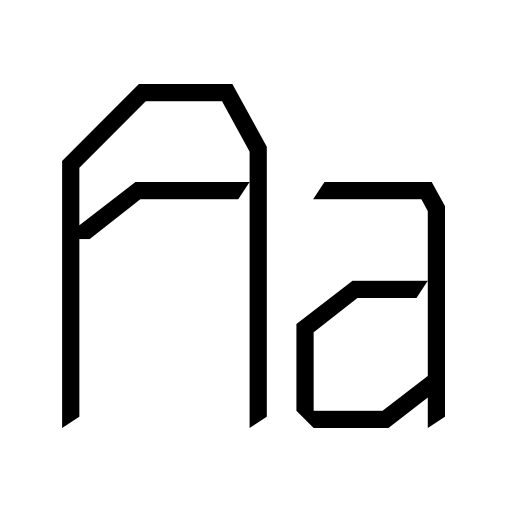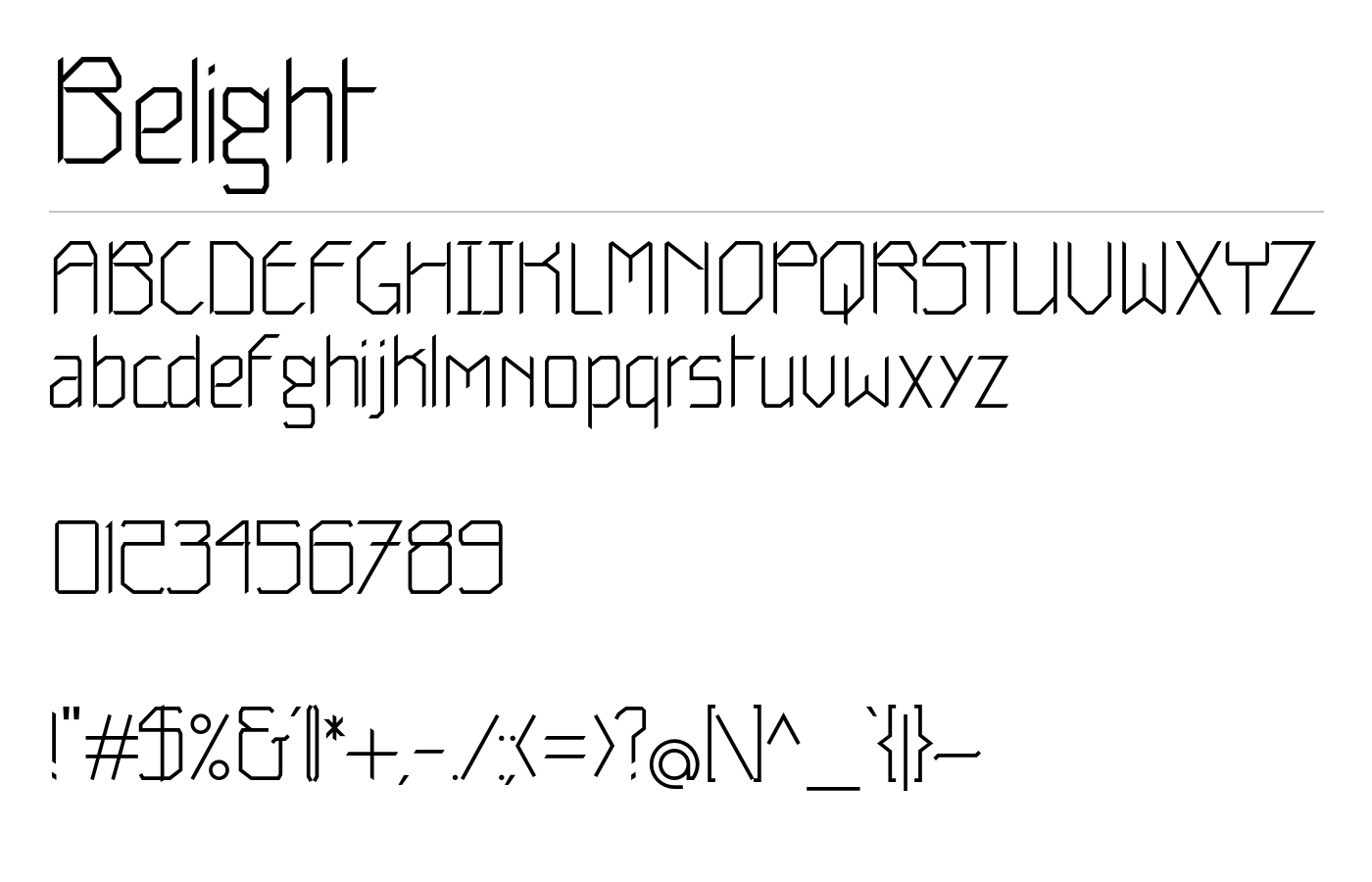
Belight is a modern, geometric sans serif font characterized by its thin, angular strokes and a high x-height that enhances legibility. Its clean, technical vibe with unique, slightly futuristic letterforms makes it ideal for contemporary design projects, tech branding, and editorial headlines where a precise and minimalist look is desired. This font works well for logos, posters, and websites that want to convey innovation and clarity.
Belight Font
About Belight Font